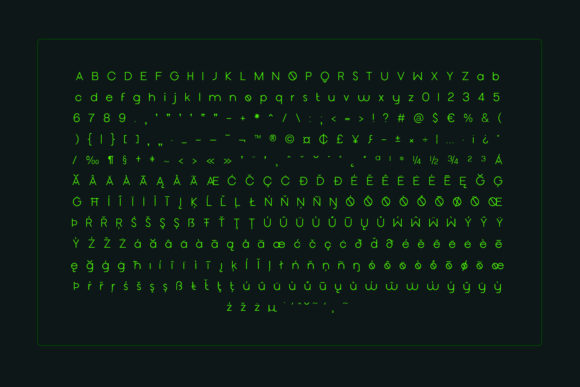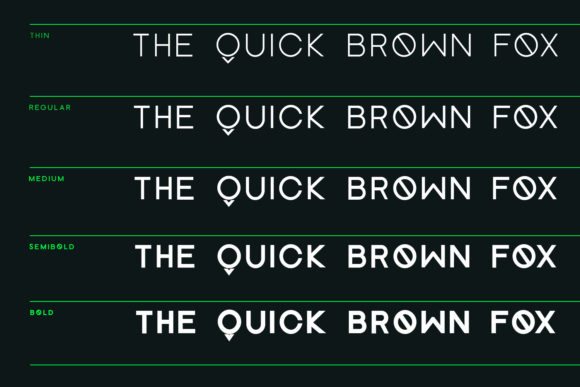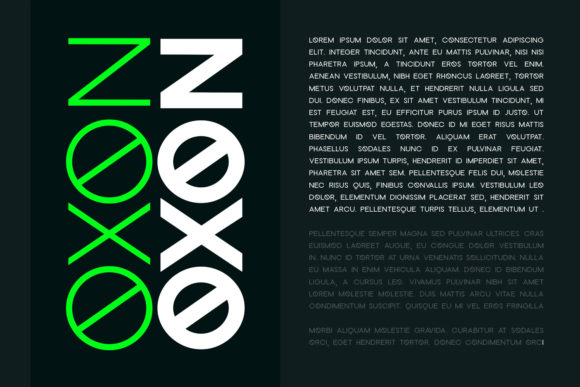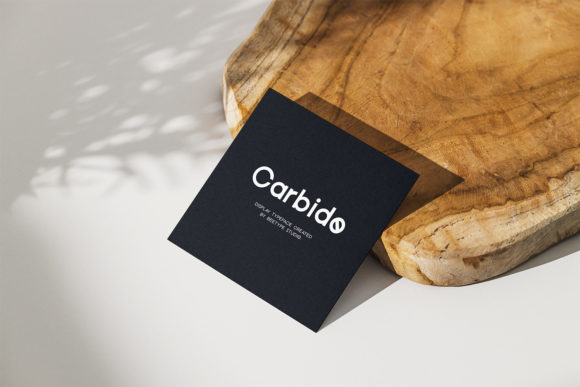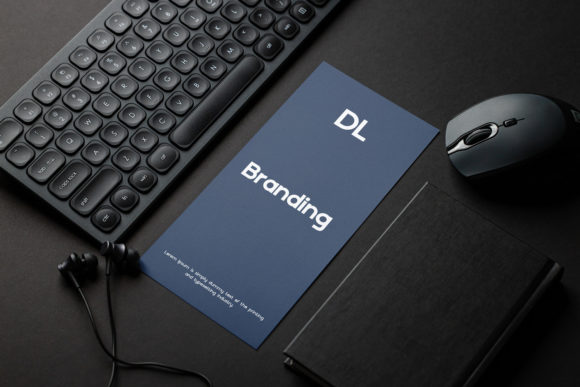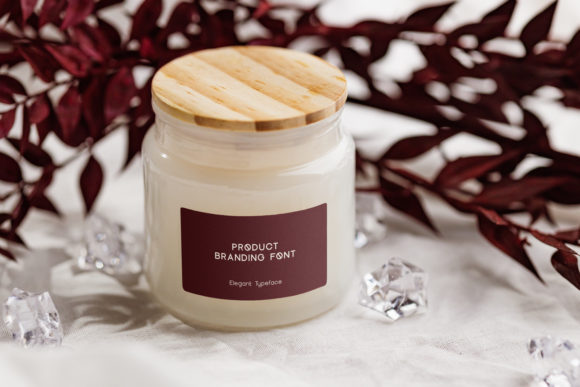
The Ultimate Guide to Carbido Font: Elevate Your Designs with a Modern Sans Serif
I’ll never forget the struggle I faced while working on a branding project for a trendy craft brewery. My client wanted a font that was modern, sleek, and yet, dependable. I scoured the internet, tried countless fonts, but nothing seemed to fit the bill. That was until I stumbled upon Carbido Font. It was love at first sight! The clean lines, the smooth curves, and the overall vibe of the font just screamed “craft brewery.” In this article, I’ll share my experience with Carbido Font, its features, and how to make the most of it in your designs.
An Honest Review of Carbido Font
- ✨ Unique and modern sans serif design
- ✅ Perfect for headlines, big text, branding, logotypes, and display usage
- ✅ Dependable and uncompromising style with controlled letter forms and modern touches
- ✅ A good mix of strong lines and smooth curves
- ✅ Each font in the family can be used independently
- ✅ Lively and authoritative in its own right, with various weights for experimentation
While Carbido Font is an excellent choice for many design projects, there are a few things to keep in mind:
- ⚠️ Limited availability of swashes or script alternates (but that’s not its primary purpose)
- 🤔 May not be the best choice for body text or long paragraphs (it’s designed for headlines and display text)
Carbido Font comes with a range of OpenType features, glyphs, and stylistic alternates that can elevate your designs:
- Ligatures: Replace standard character combinations with stylized ligatures
- Stylistic alternates: Swap out characters for alternative designs
- Glyphs: Access additional characters, such as icons or ornaments
The Backstory of Carbido Font
Carbido Font was designed with the modern designer in mind. Its creator aimed to craft a font that was both sleek and dependable, with a mix of strong lines and smooth curves. The result is a versatile font perfect for a wide range of applications, from branding and advertising to packaging and digital design.
| Font Name | Carbido Font |
| Author | BeeType |
| What is Carbido Font best used for? | Carbido Font is perfect for headlines, big text, branding, logotypes, and display usage. |
| Is Carbido Font suitable for body text? | While it’s possible to use Carbido Font for body text, it’s primarily designed for headlines and display text. For longer paragraphs, consider a font with more legibility and flow. |
| Is Carbido Font available in different weights? | Yes, Carbido Font comes in various weights, allowing you to experiment with different styles and applications. |
In conclusion, Carbido Font is a modern sans serif font that’s perfect for designers, crafters, and creative hobbyists looking to elevate their designs. With its unique blend of strong lines and smooth curves, it’s an excellent choice for headlines, branding, and display usage. By understanding its features and limitations, you can make the most of Carbido Font in your designs and take your projects to the next level.